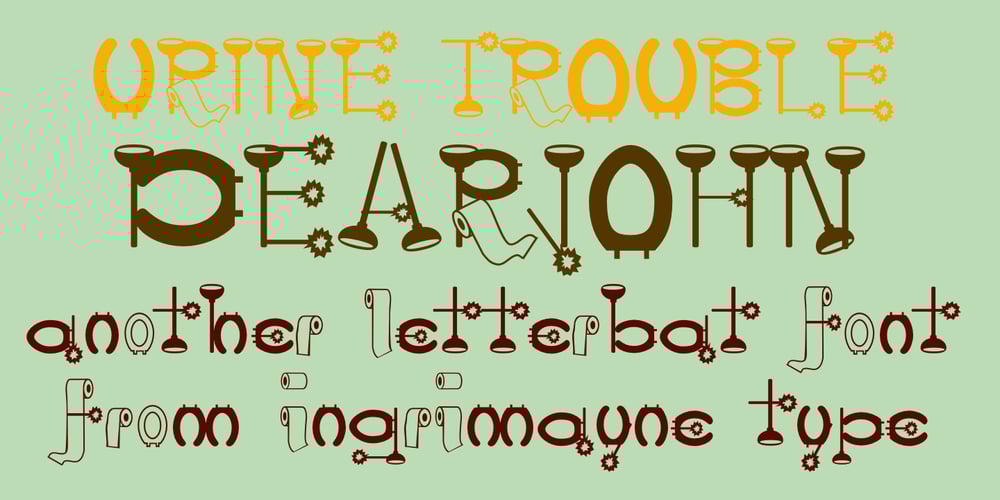
DearJohn
DearJohn font
DearJohn Font Family was designed by Robert Schenk and published by Ingrimayne Type. DearJohn contains 1 styles and family package options. Originally I called this font YearInYearOutYoureInUrine, but I was told that that name was too long and maybe not in good taste. I settled for WaterCloset when it was first released, but then renamed it with a more appropriate title. It is caps only but the letters on the lower-case keys differ from those on the upper-case keys. It comes with a large assortment of accented letters to support most European languages. Although you certainly would not want to use it for formal invitations, when bad taste is called for, it might be ideal.